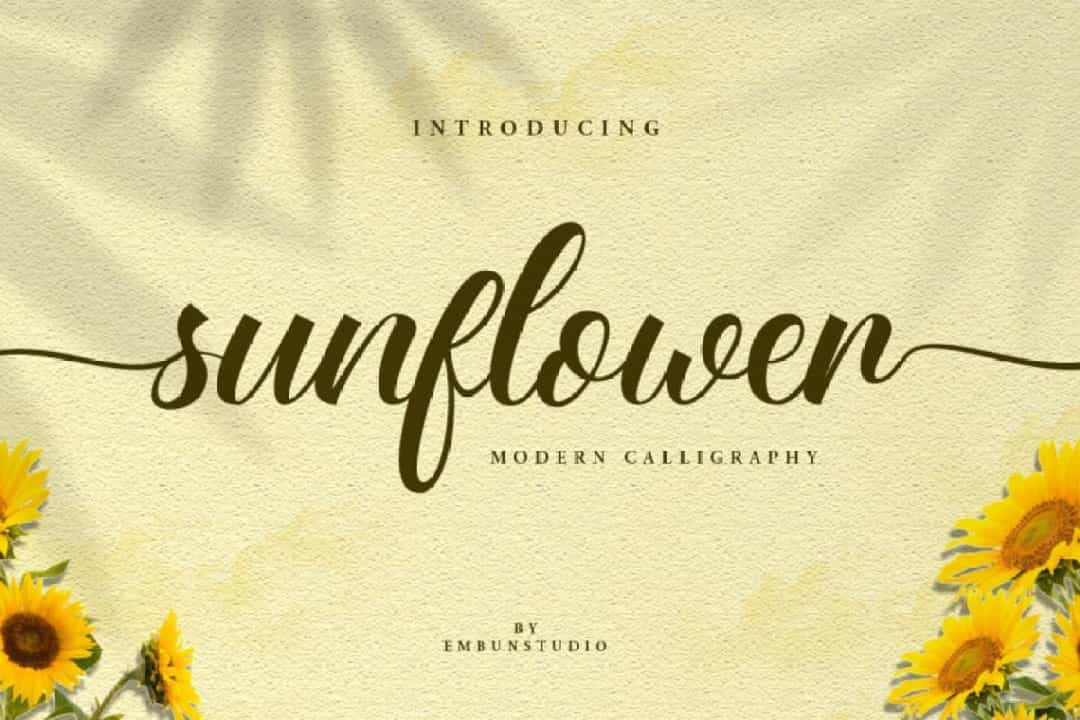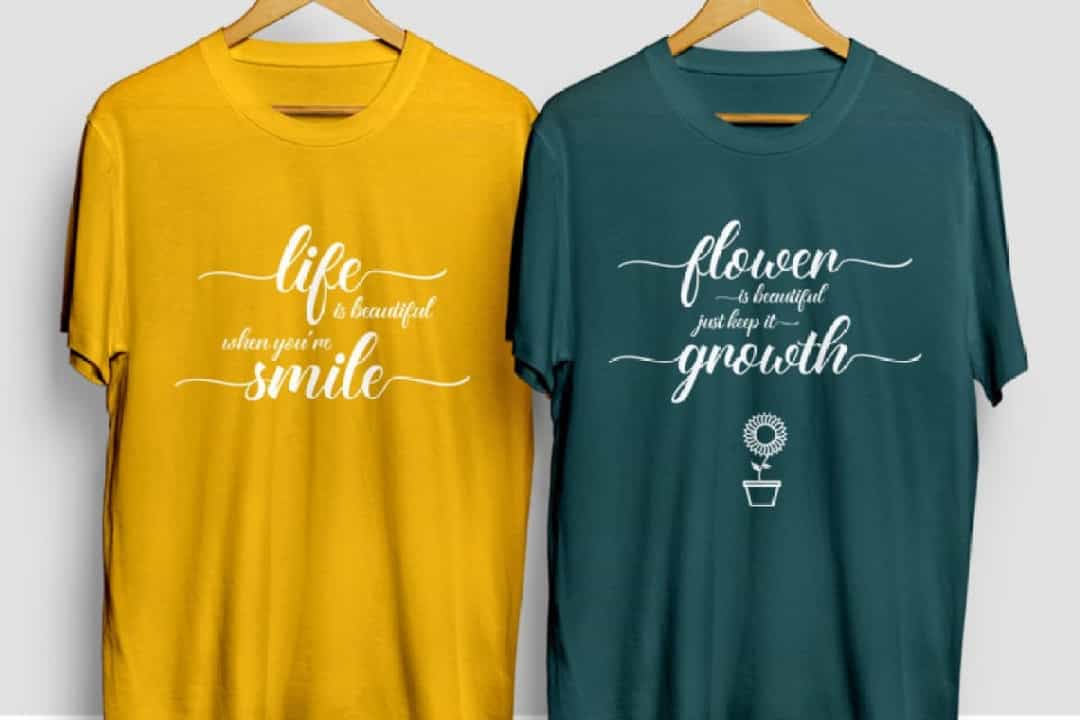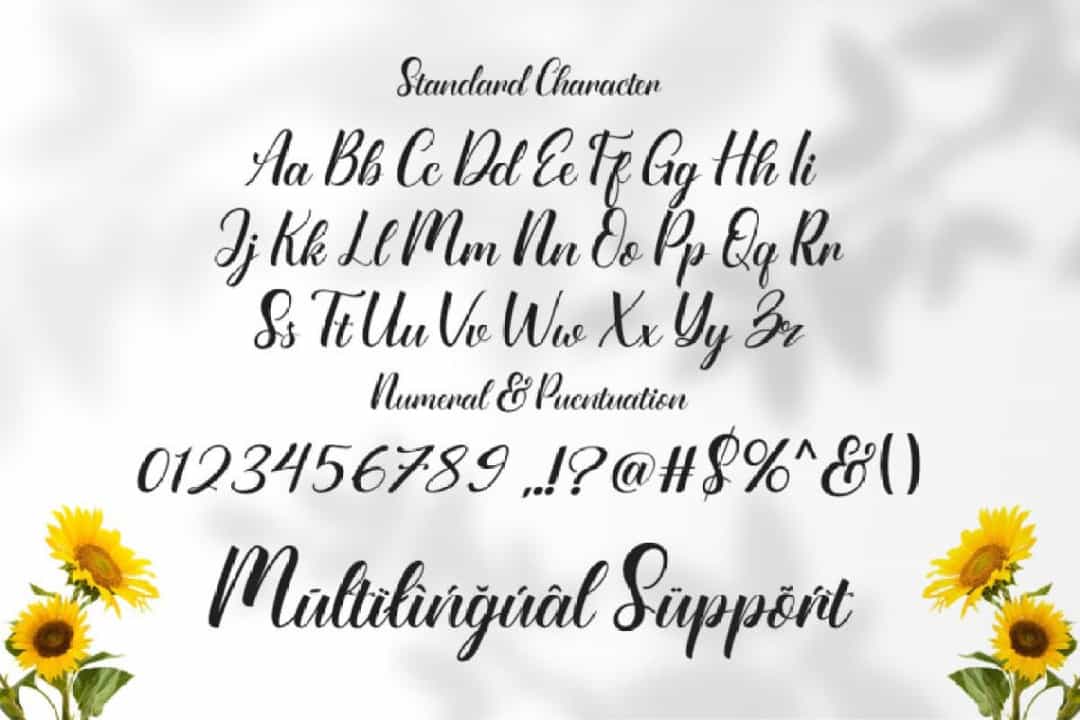
Sunflower Fields is an exquisite calligraphy font featuring multiple styles. This font appears natural, classy, and elegant and perfect for any extravagant project. Sunflower Fields Font can be used on various products like invitations, packaging for products, quotes, crafting projects, crafting photos, labels photographs, watermarks, branding logos etc.